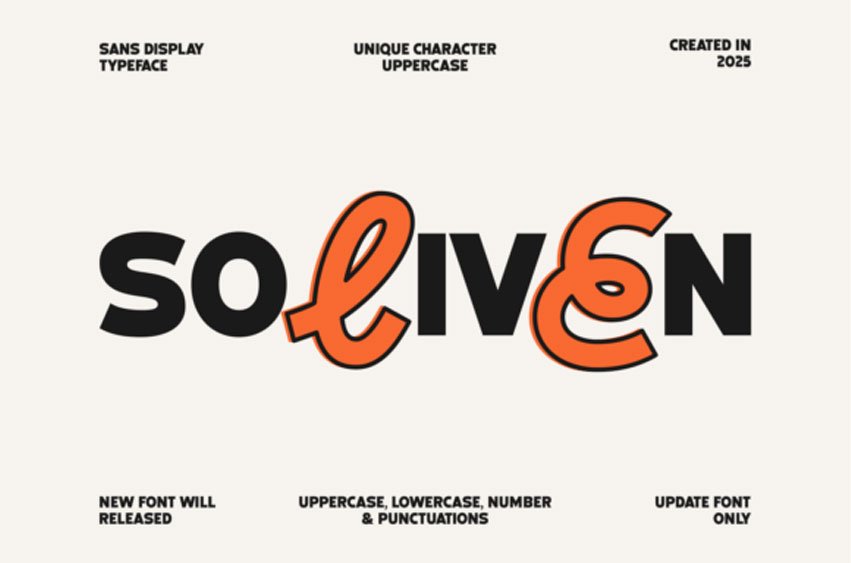
Soliven Font is a modern sans display typeface designed to stand out with confidence and personality. It blends clean, bold letterforms with unique expressive uppercase characters, creating a playful yet professional look.
Soliven is perfect for brands and designers who want a typeface that feels fresh, friendly, and unforgettable.